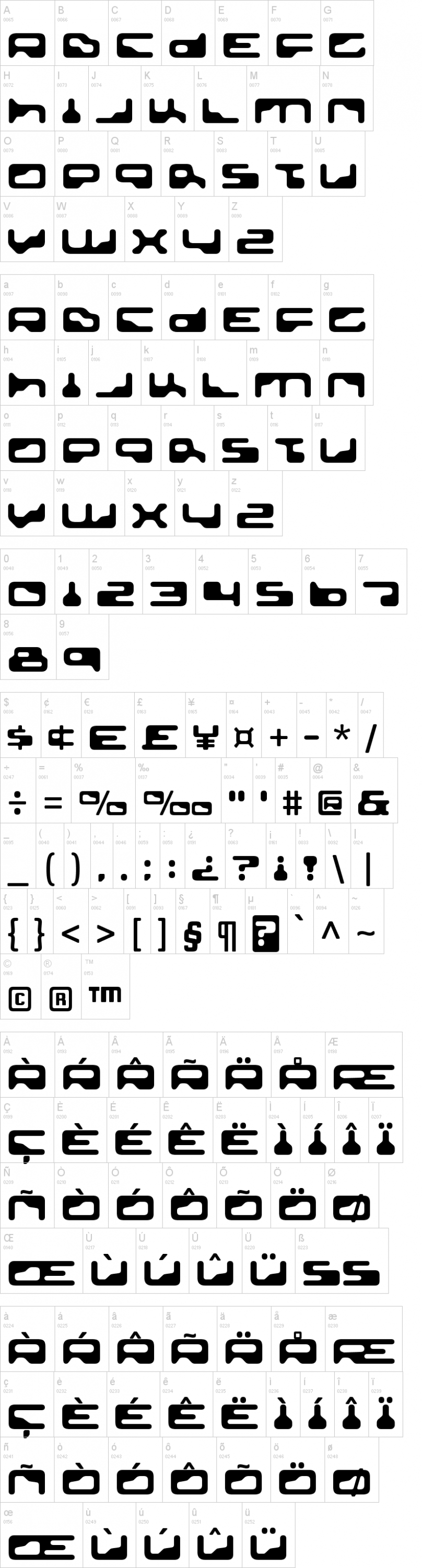
Шрифт Golden Girdle
Golden Girdle is a wide, retro-futuristic display font inspired by magnetic ink fonts on the 1960's. Don't forget to read the files inside the zip for details. Updated in 2012.